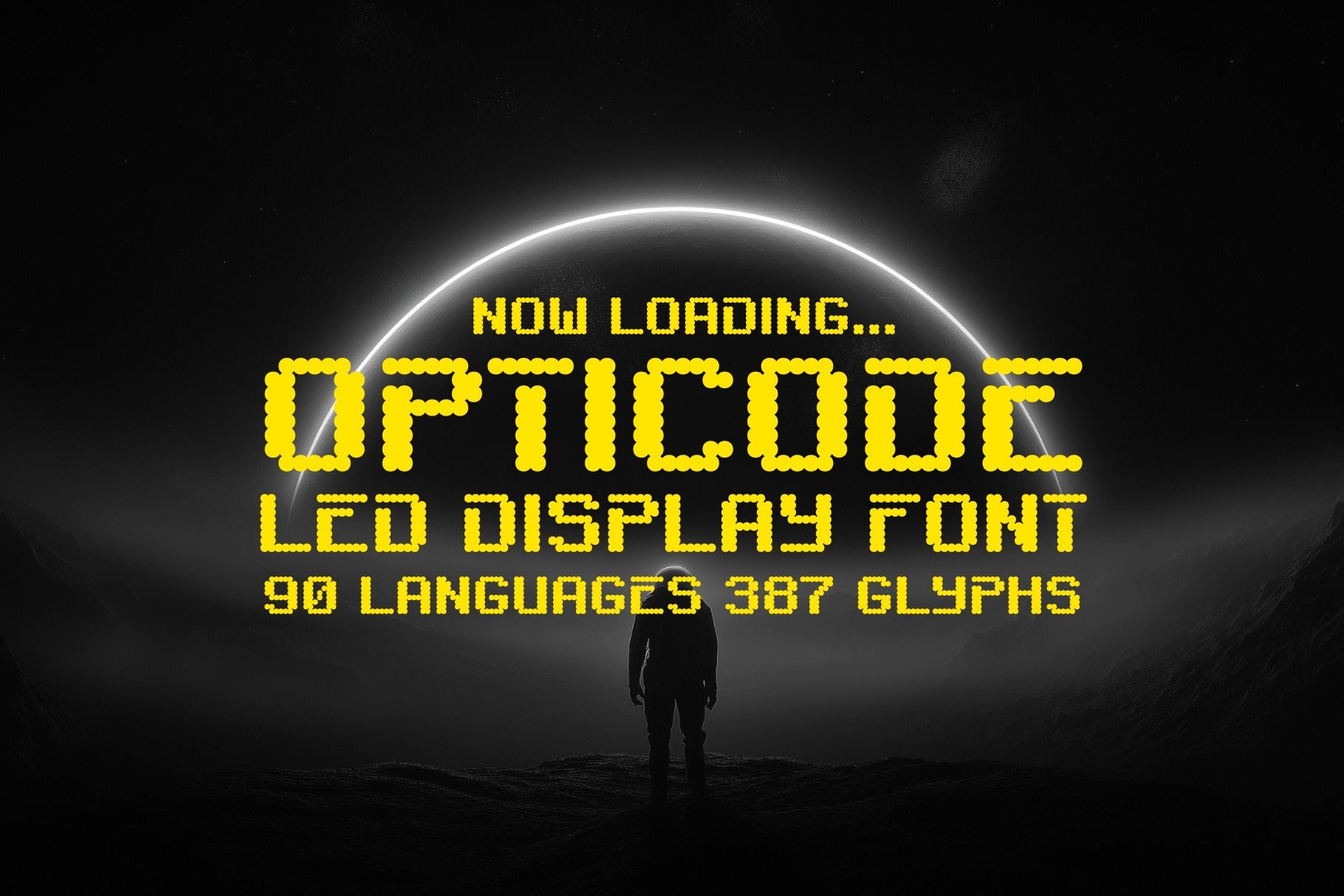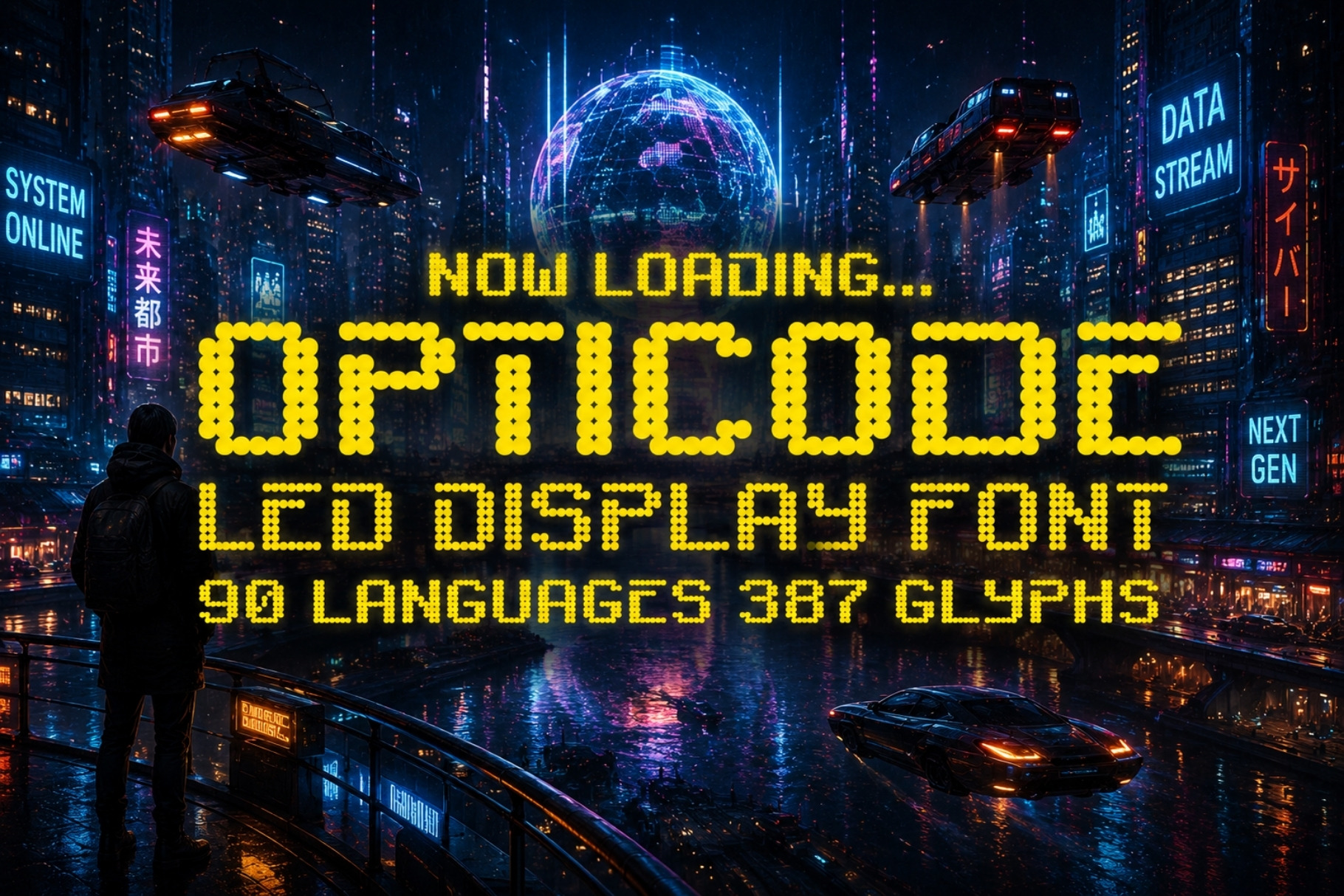
Opticode - LED Display Font
Opticode is a sleek LED display font engineered for the digital age. Inspired by the glowing precision of retro terminals and futuristic dashboards, this typeface fuses technology, clarity, and style into one cohesive design. With 387 meticulously crafted glyphs and support for 90 languages, Opticode ensures your message shines bright across borders and screens alike.
Each character is built with clean geometric lines that emulate real LED grids, making it perfect for games, web design, branding, and social media graphics that demand a sharp, modern edge. Whether you’re designing a sci-fi interface, a tech startup logo, or an attention-grabbing headline, Opticode delivers that crisp, illuminated aesthetic that instantly feels alive with digital energy.